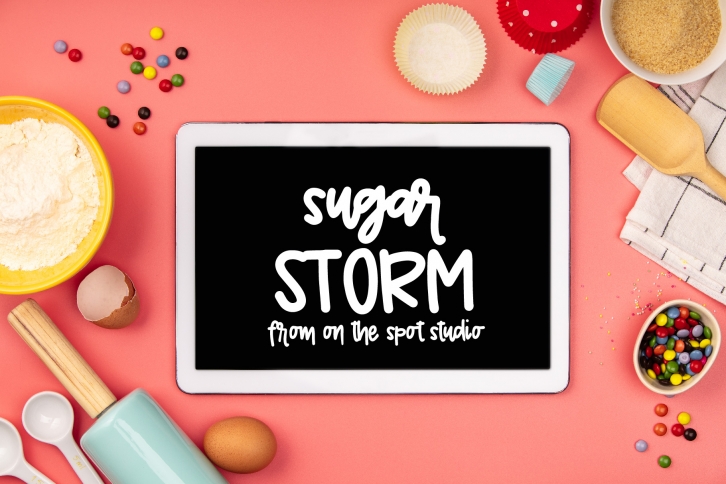
Sugar Storm is a trendy and unique font with an authentic style. It was designed by On The Spot Studio and it's a great choice for creative people who need such a font. It was released on August 26, 2019 and the file size is 18.66 MB. Sugar Storm will add an organic vibe to any design idea!